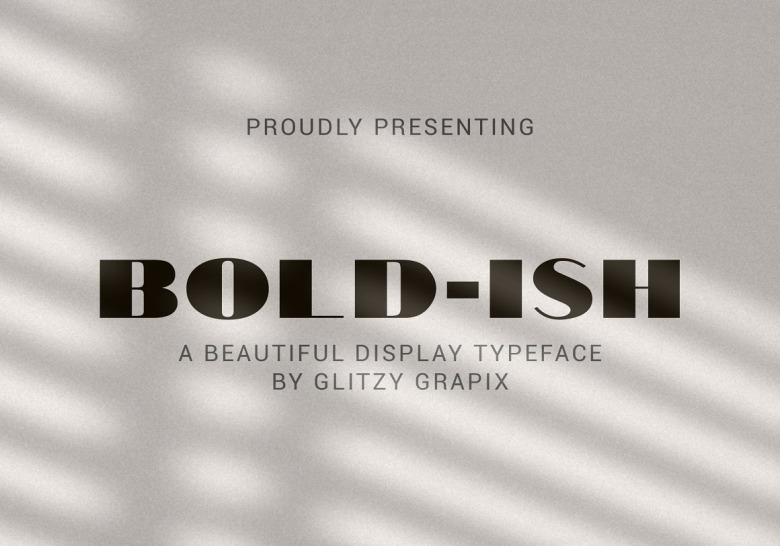
Bold-ish Font
This is a modern and elegant bold sans serif typeface by Lelanie De Lange. Its boldness, elegance and simplicity make this font look absolutely fabulous. Bold-ish is a display font made mainly for headlines and titles, but it can also be used for various purposes such as logos, advertising, t-shirts, letterhead, posters, signage, labels, badges and so much more.